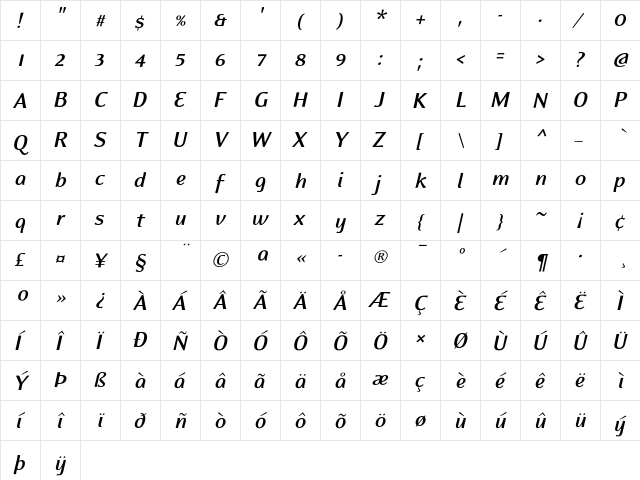
EideticModern-BoldItalic Bold Italic Font Preview
Design Context for EideticModern-BoldItalic Typeface
EideticModern-BoldItalic offers clean, dependable letterforms without strong stylistic allegiance, making it a practical choice for designers who need flexibility. Its italic angle brings a sense of urgency and motion to the letterforms. Its bold stroke weight gives it real presence on the page.
Pro Tip: Try EideticModern-BoldItalic for annotation and caption copy alongside an upright companion — the contrast in angle creates a dynamic but ordered typographic system.